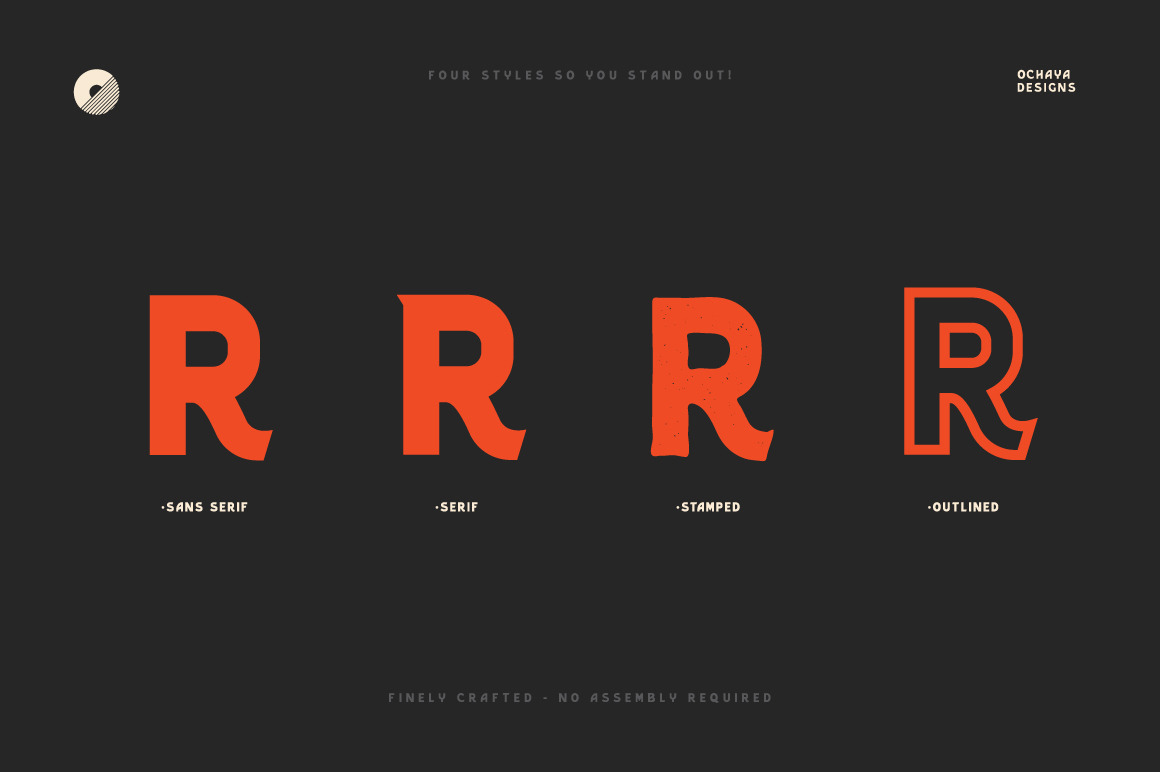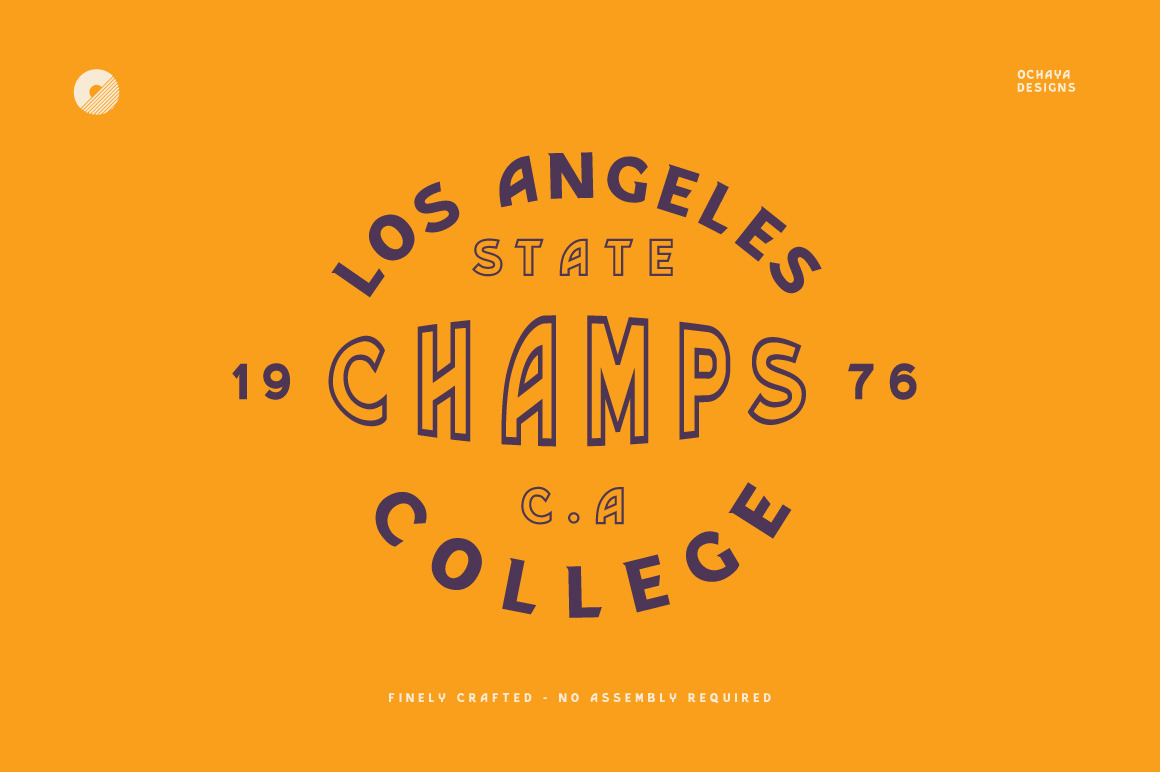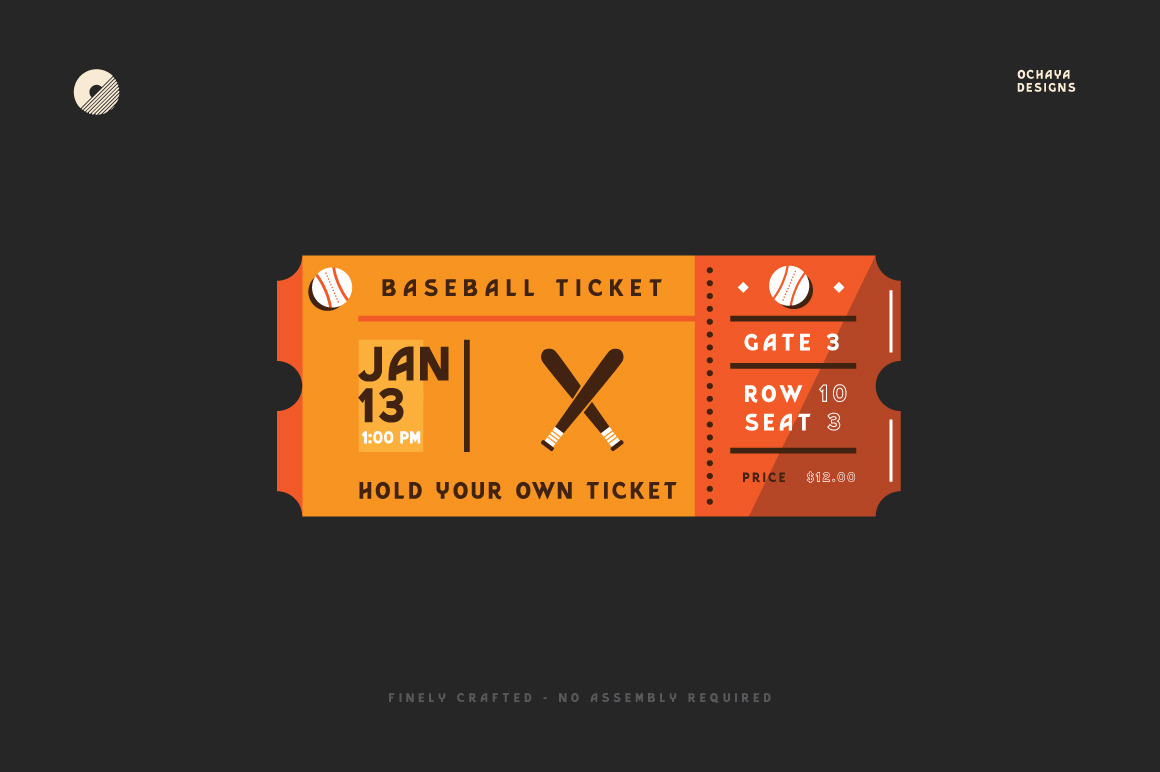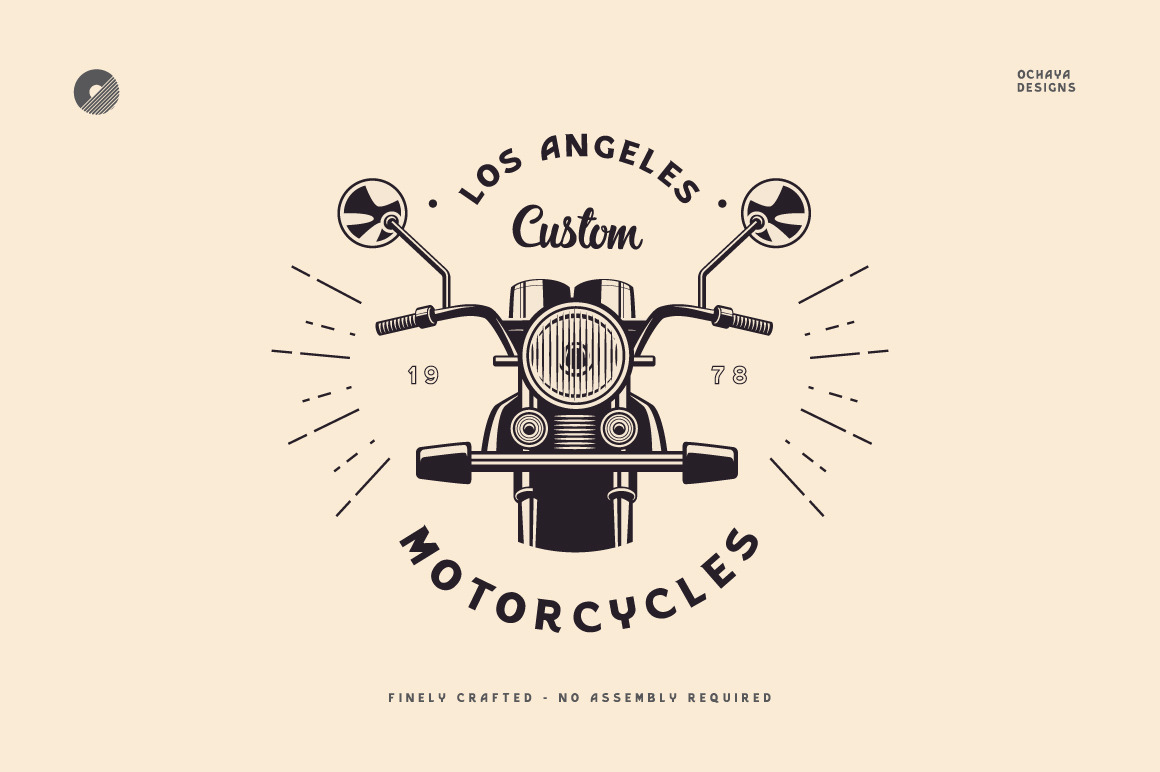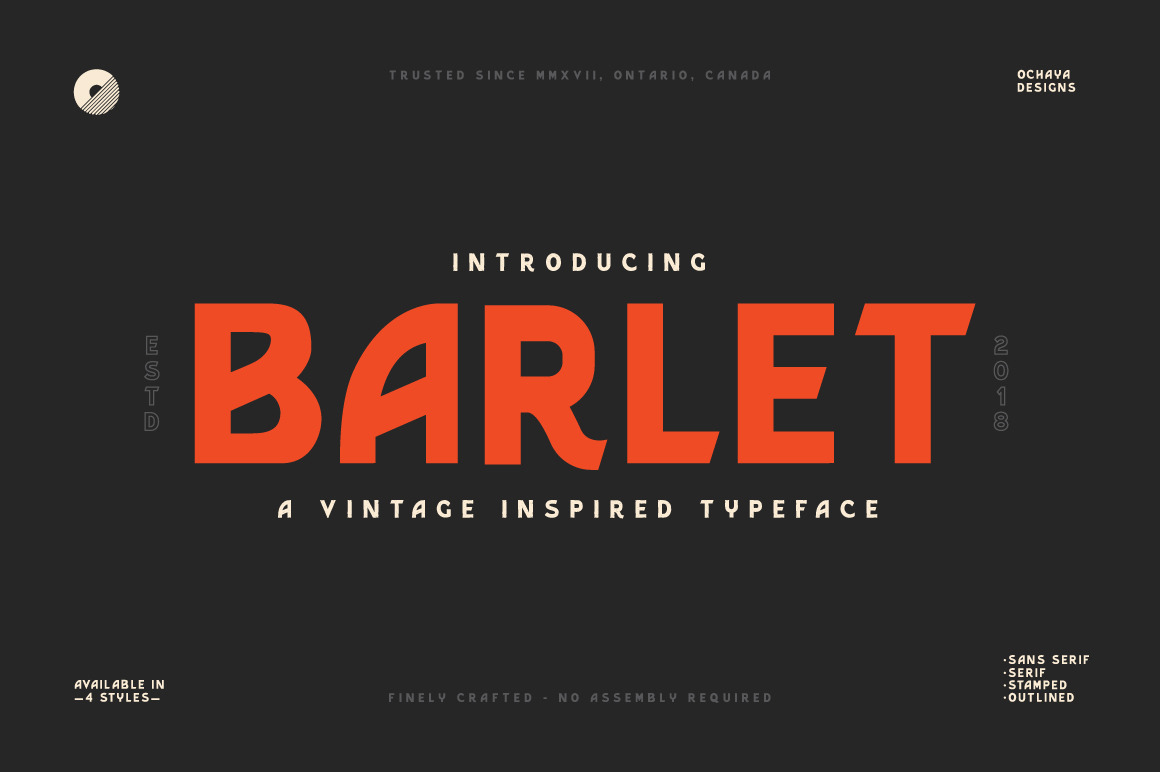
Barlet | Vintage Inspired Font
A vintage inspired serif typeface. Barlet comes as a complete with four vintage styles and they are best used for branding, print design, title headings & so much more. Check it out! What you get? A well crafted serif typeface. Uppercase Characters Numerals & Punctuation